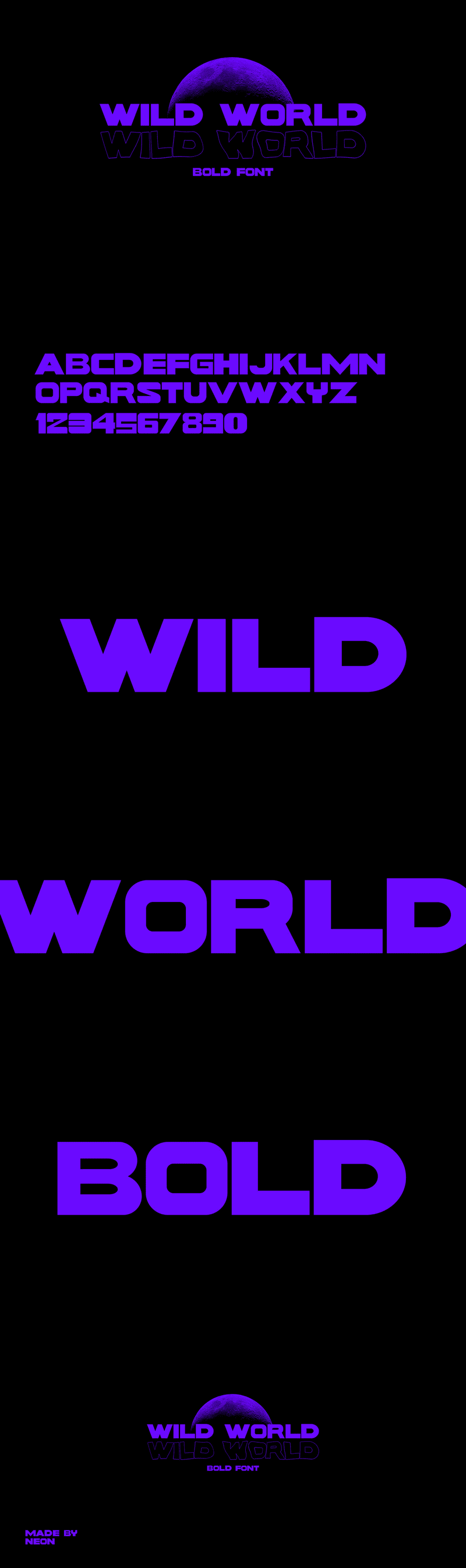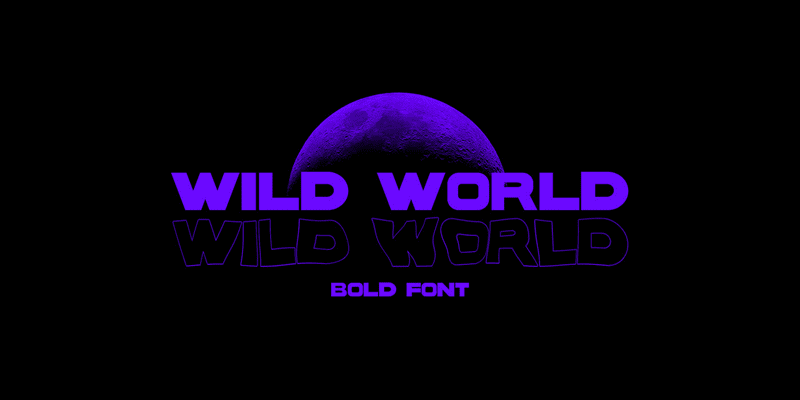
Wild World – Sans Serif Bold Font
Wild World is a clean sans serif bold font featuring a modern touch that will help you create professional projects. It is perfect for social media posts, quotes, greeting cards, and more. Find out more Bold Fonts.